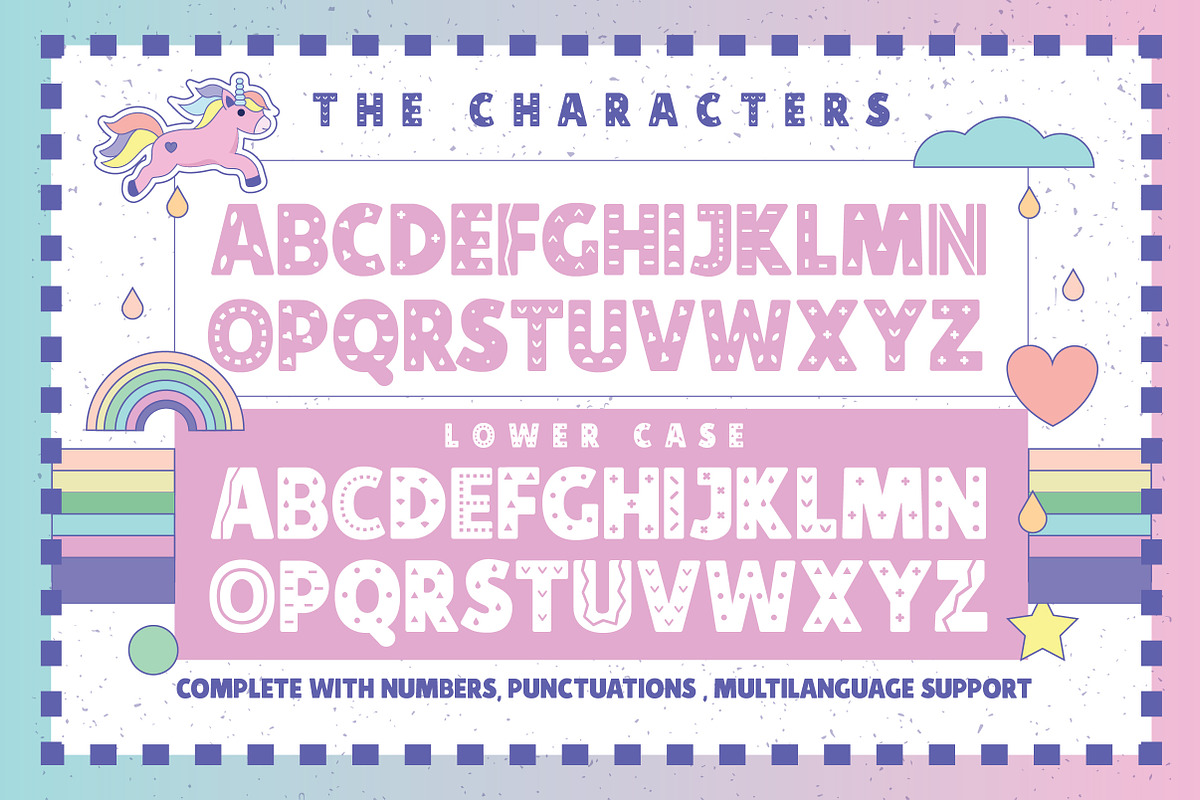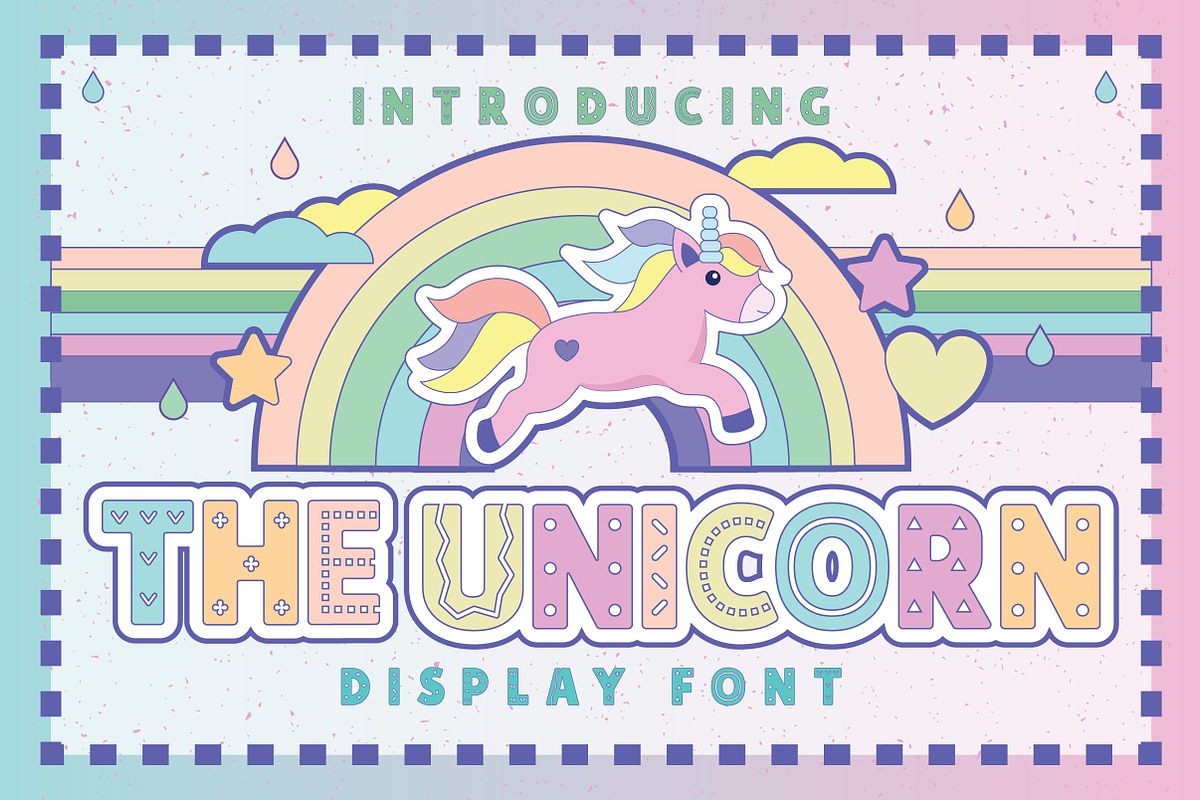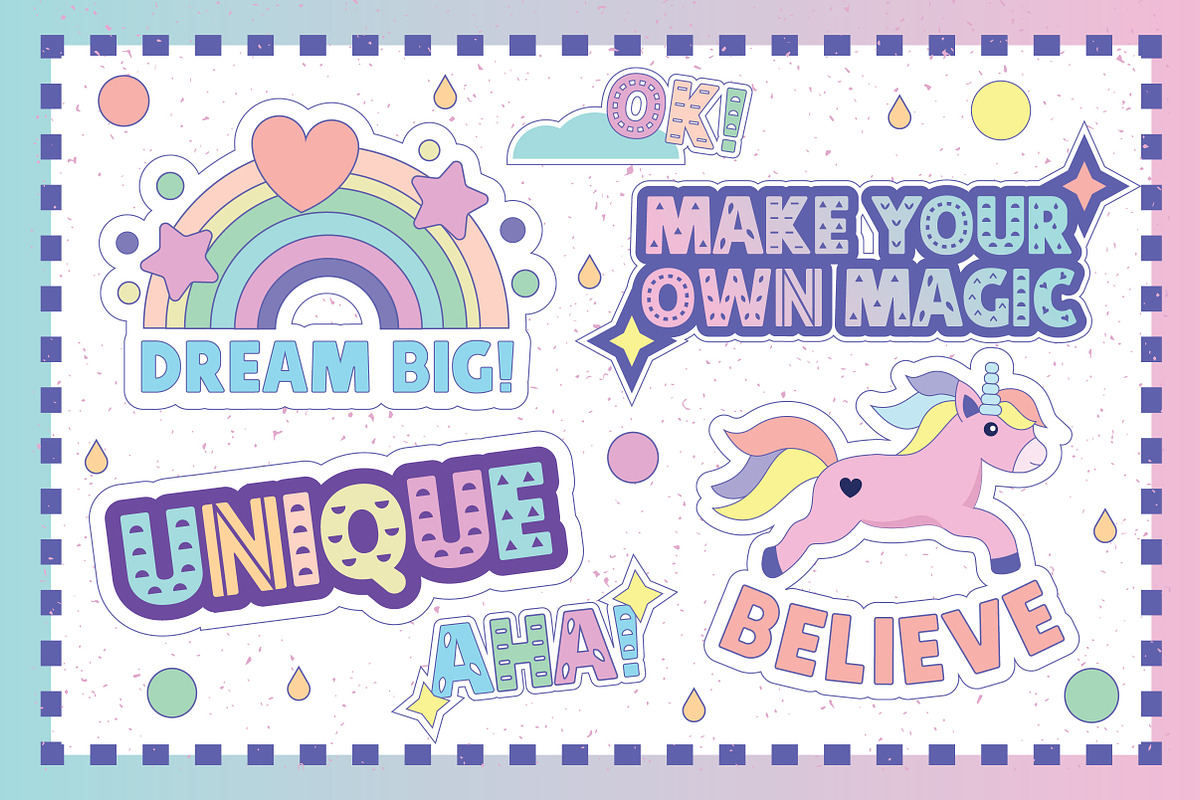
The Unicorn
The Unicorn is a bold decorative display font. It is versatile to use in many designs. Make your own logo, poster, book’s title, etc with these cute fonts!